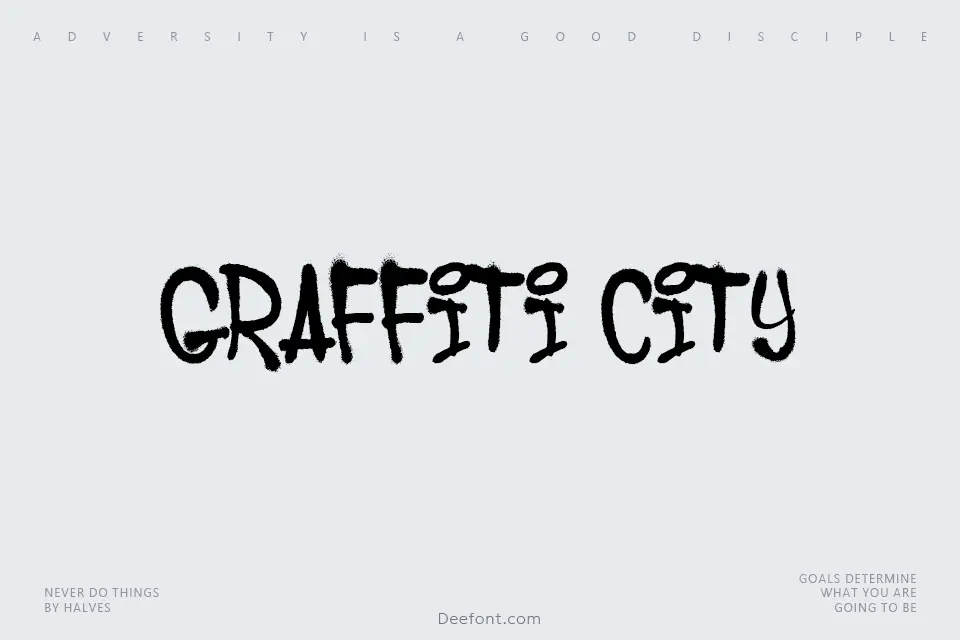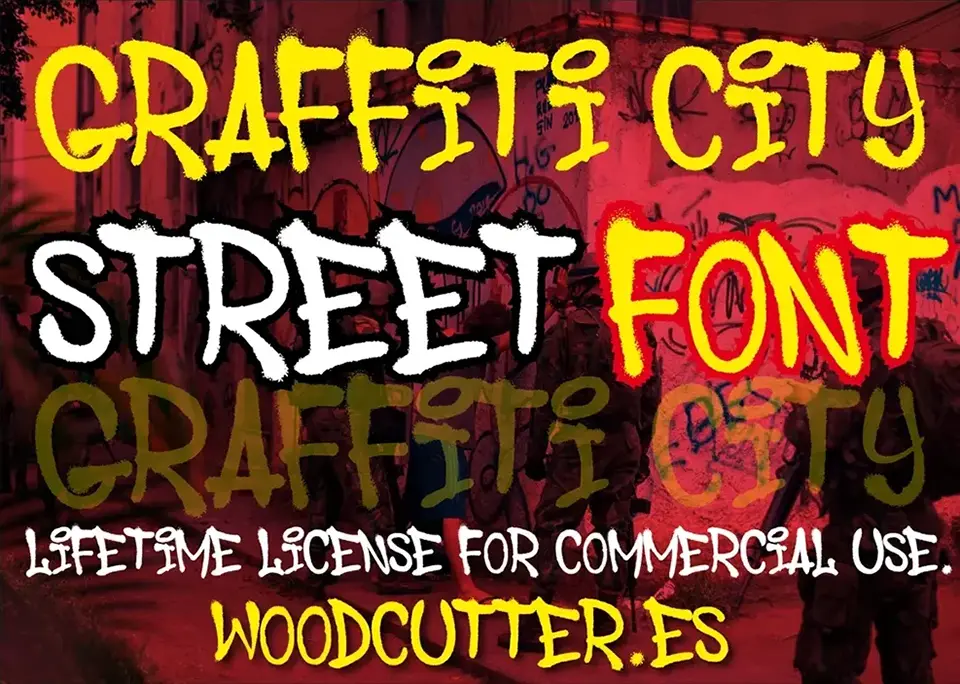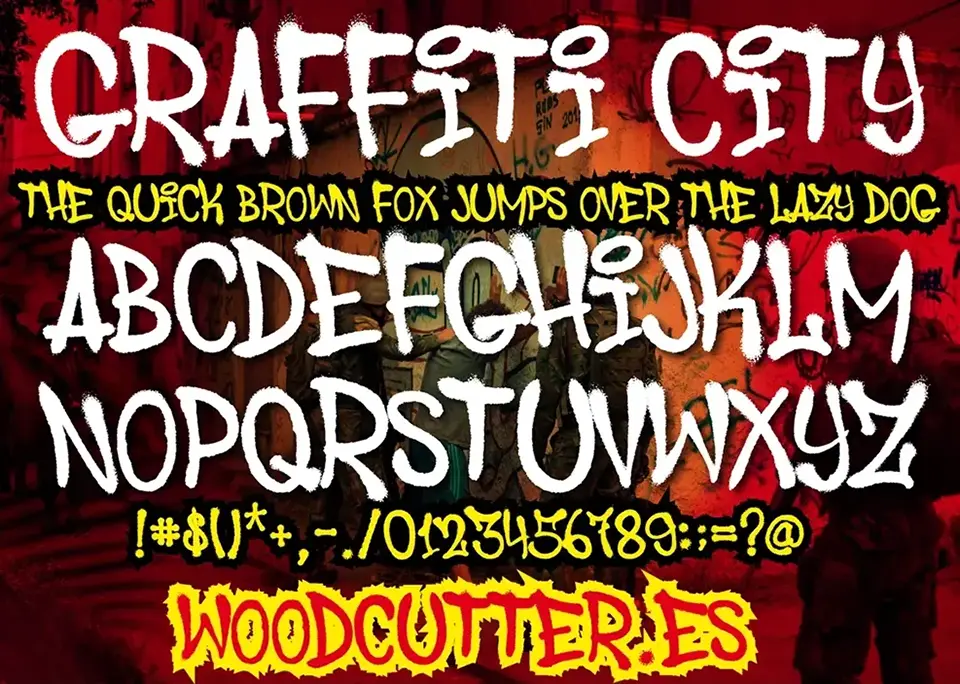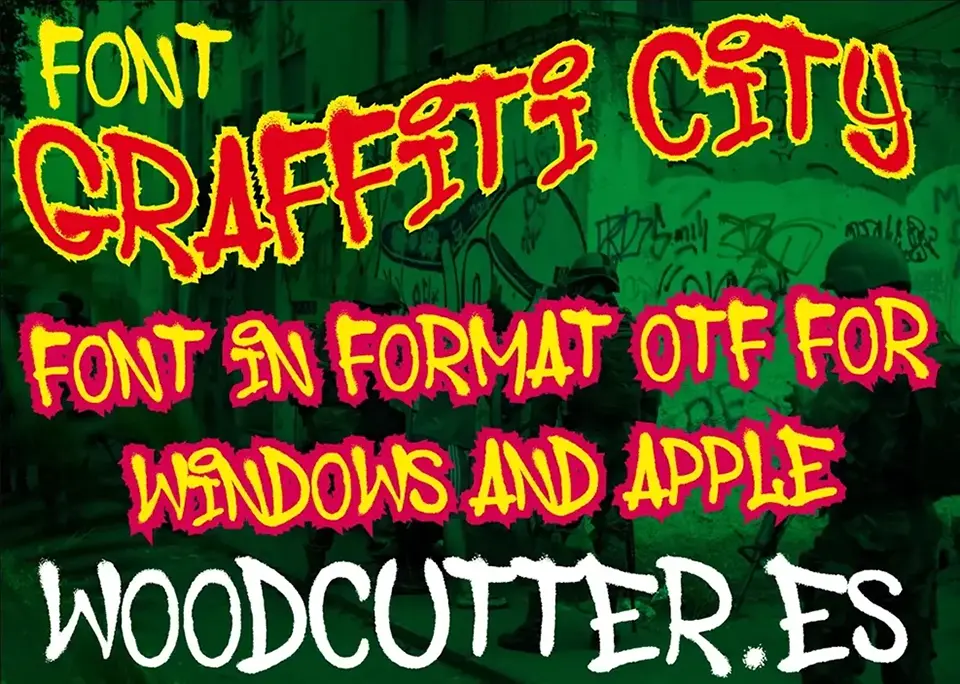
Graffiti City Font
Graffiti City is a vibrant script typeface that captures the raw energy and bold expression of urban street art. Designed with dynamic letterforms and expressive curves, this font infuses your projects with authentic graffiti aesthetic. Perfect for posters, branding, social media graphics, and any design that demands attention and urban flair. Whether creating eye-catching headlines or artistic displays, Graffiti City brings playful creativity and street-inspired character to your typography.